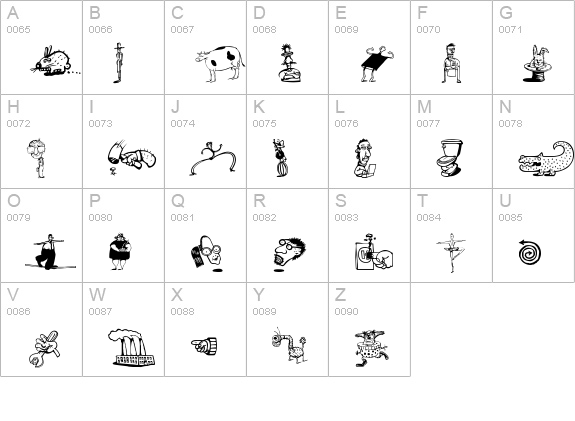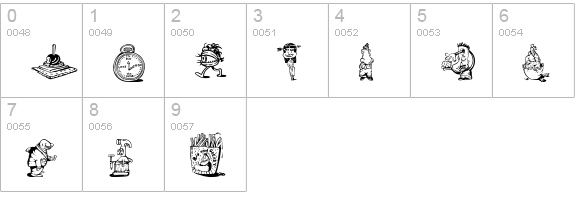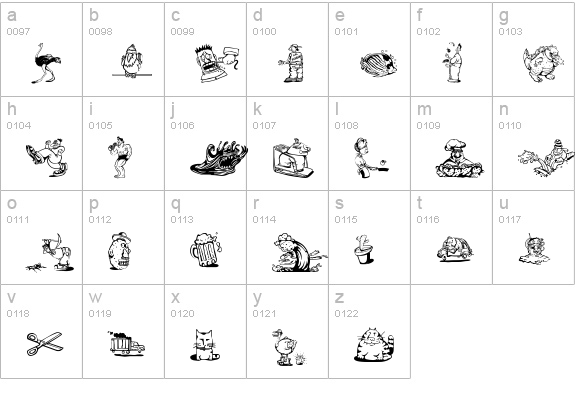
FontooniesTwo Font Details
FontooniesTwo is a whimsical and playful font that brings a touch of fun to any project. With its unique and quirky design, this font is perfect for adding a creative and lighthearted touch to your designs. The rounded edges and bold characters give FontooniesTwo a friendly and inviting feel, making it great for a variety of uses such as branding, posters, invitations, and more. The best part? FontooniesTwo is available for free download at FontsMarket.com. So go ahead and add this charming font to your collection and let your creativity shine with FontooniesTwo!